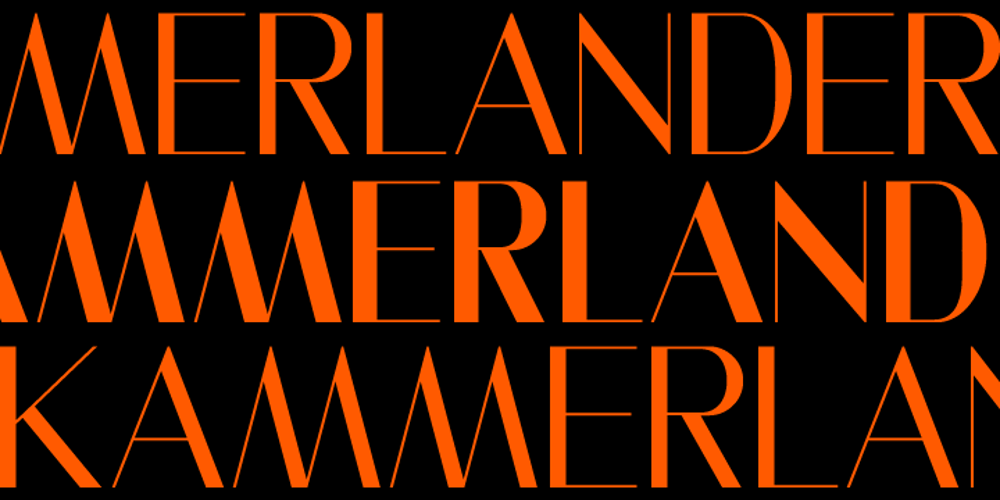
Kammerlander Font Family was designed by Juraj Chrastina and published by Juraj Chrastina. Kammerlander contains 2 styles and family package options. Kammerlander is a sans typeface with a distinctively strong thick/thin contrast. It’s based on Messner- a hairline font with a constant stroke weight, so their combination looks very natural. They look great in fashion magazines, in the expensive world of beauty and glory. Kammerlander is an all caps face, especially suitable for larger sizes.